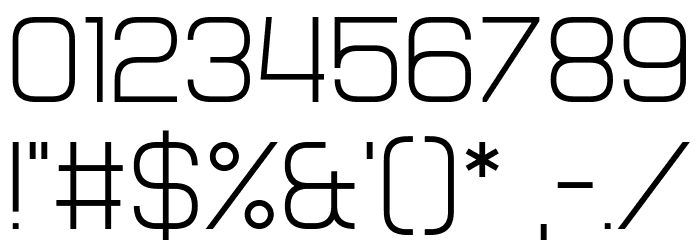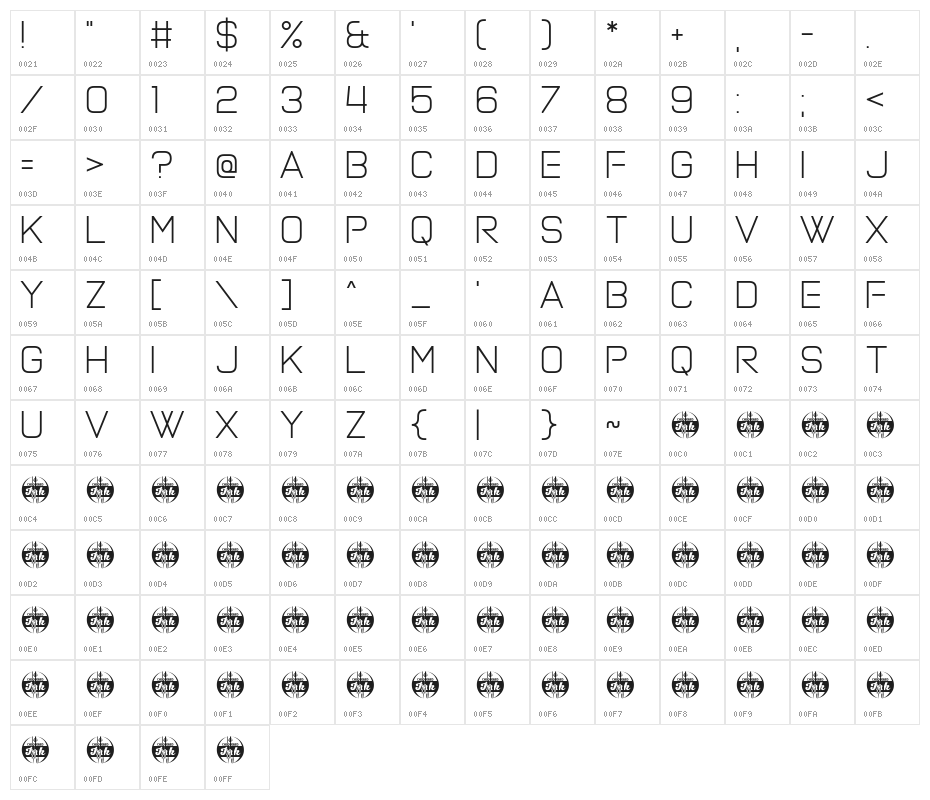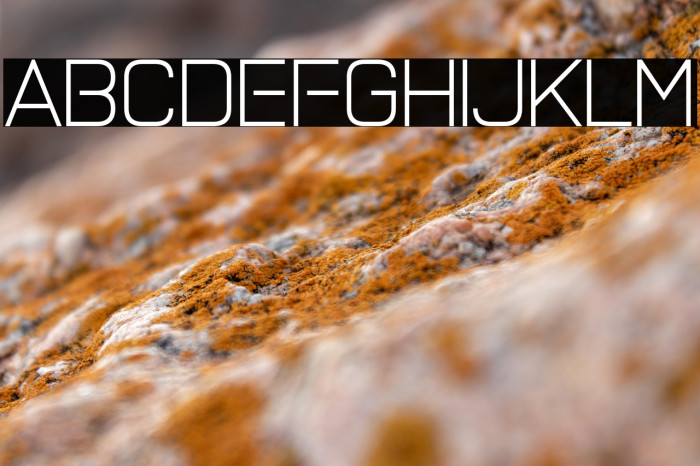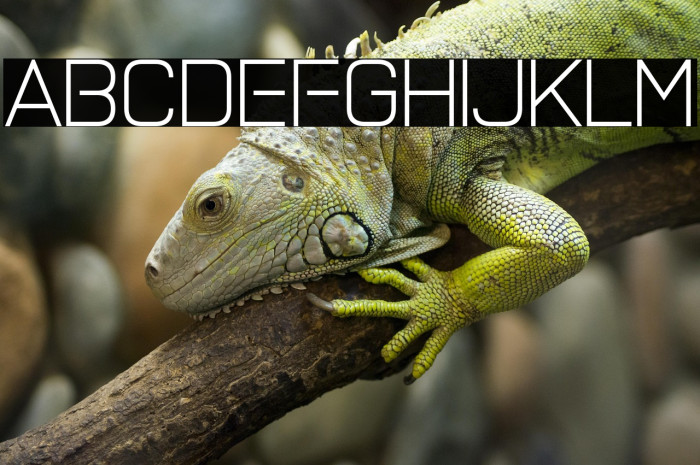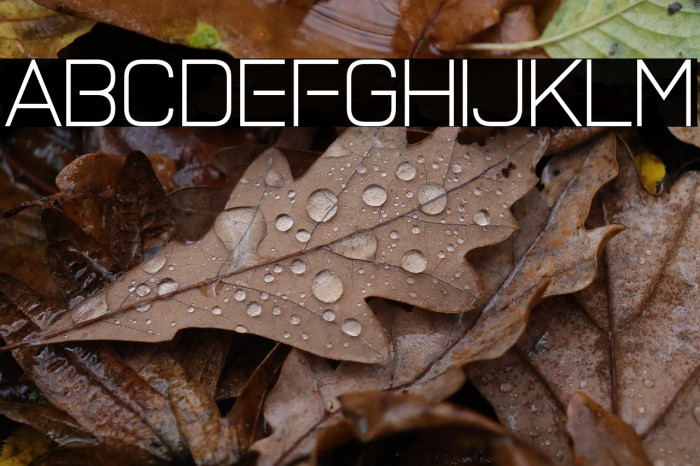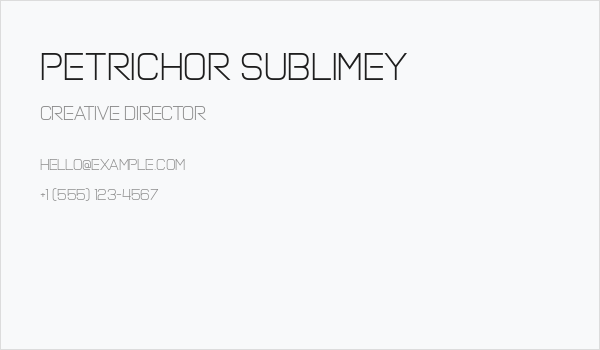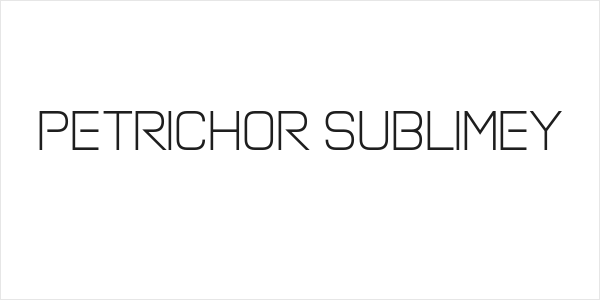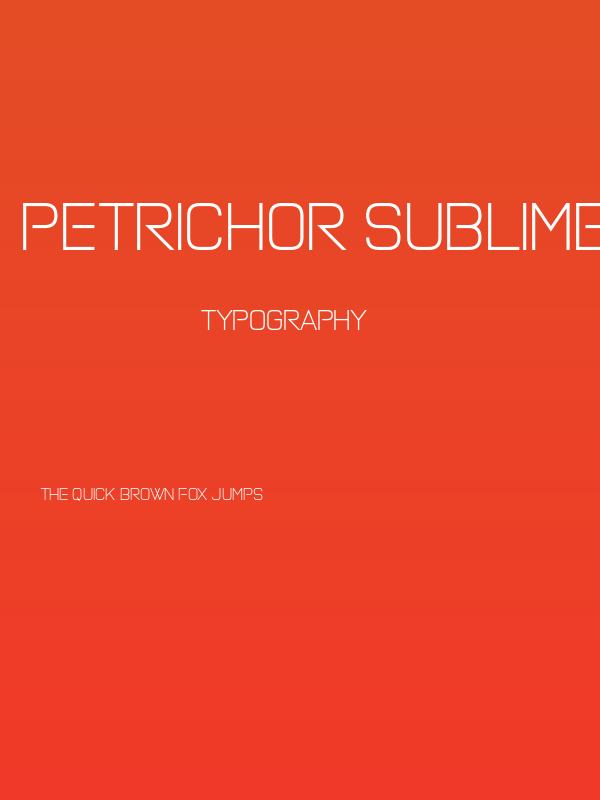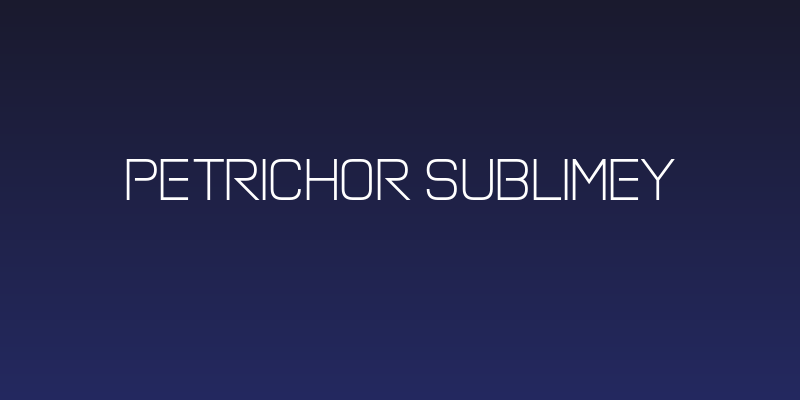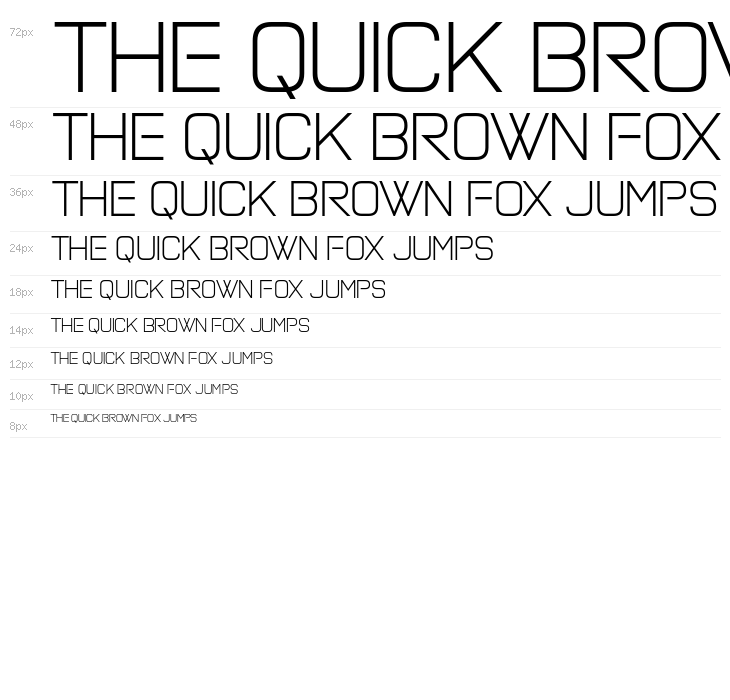
Petrichor Sublimey Font
Petrichor Sublimey Description
This font features a sleek, modern design with clean lines and a geometric structure. The uppercase and lowercase letters maintain a consistent height and width, creating a uniform appearance. The numerals are distinct and easy to read, while the special characters blend seamlessly with the overall style. The font's minimalistic approach makes it versatile for various design applications, emphasizing clarity and precision.
| Proposed Projects | Ideal for branding, digital interfaces, and modern editorial design. |